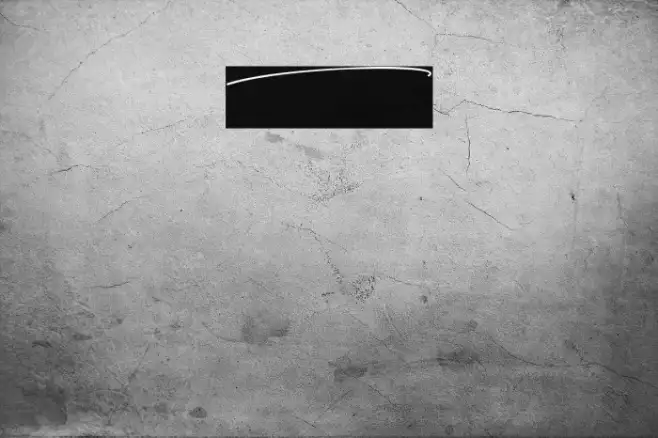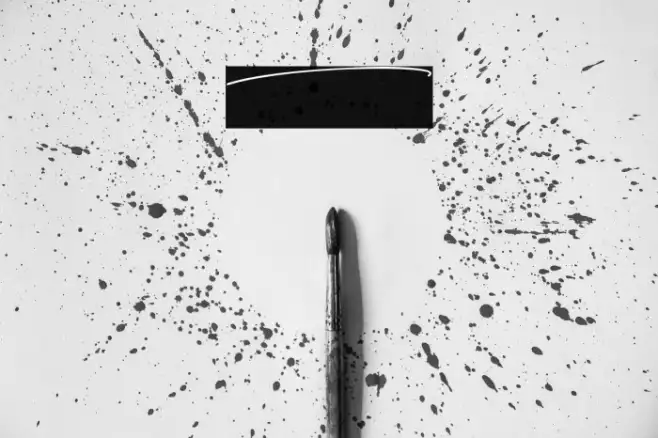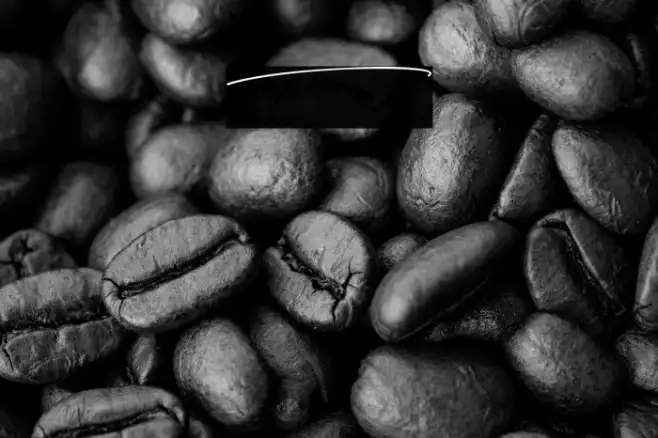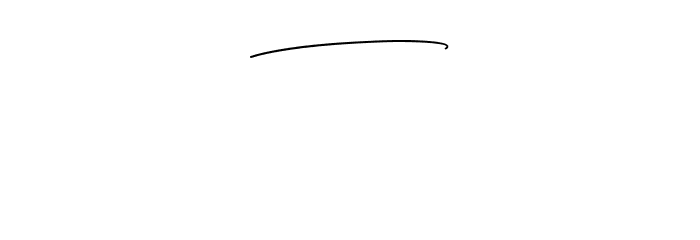
Monstera Swashes Font
Monstera Swashes Description
A single, thin, curved line resembling a decorative flourish or swash, typically used as an embellishment rather than a full font.
| Use Case | Decorative accents, embellishments |
| Proposed Projects | Invitations, greeting cards, decorative accents, branding elements. |